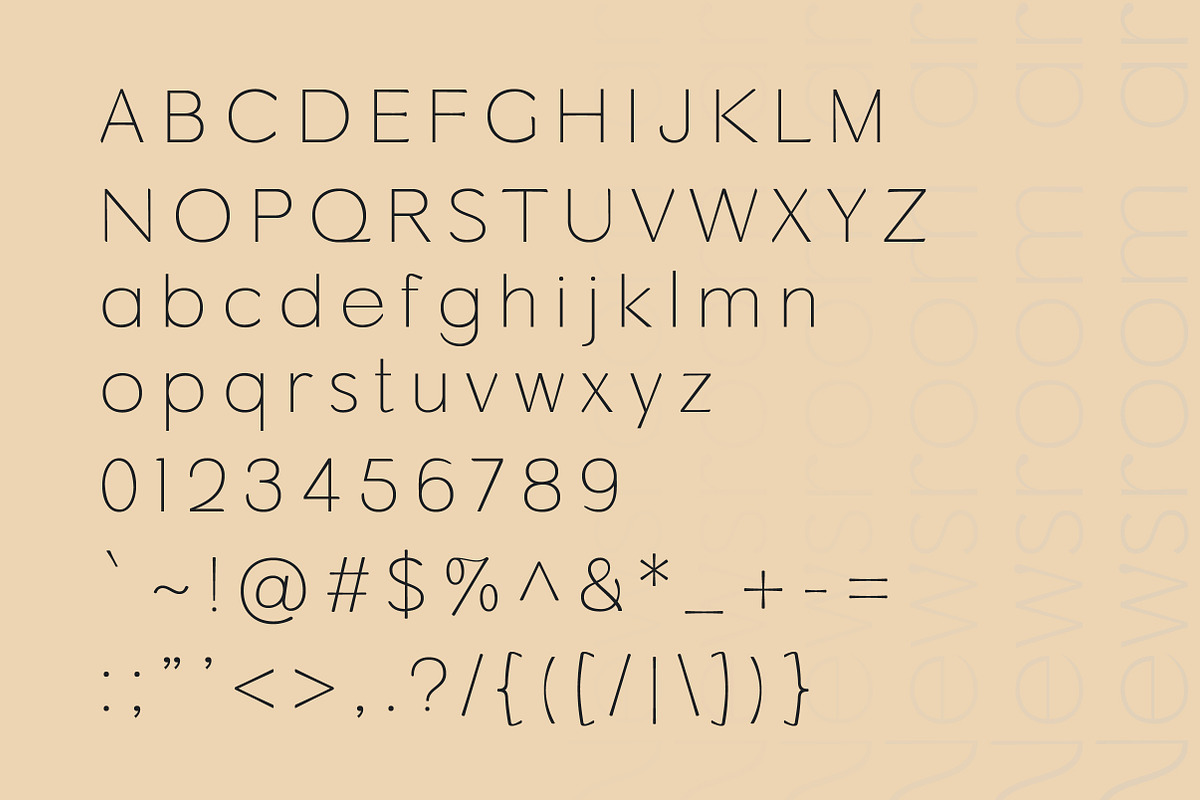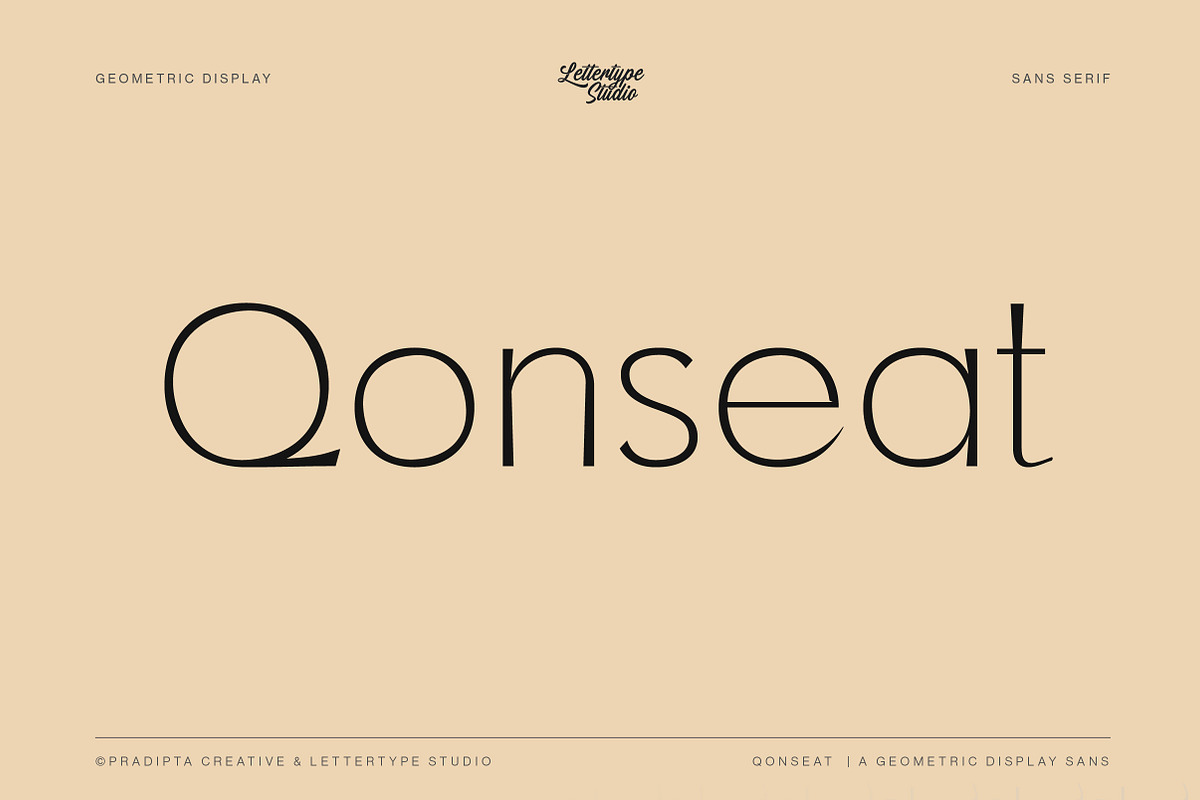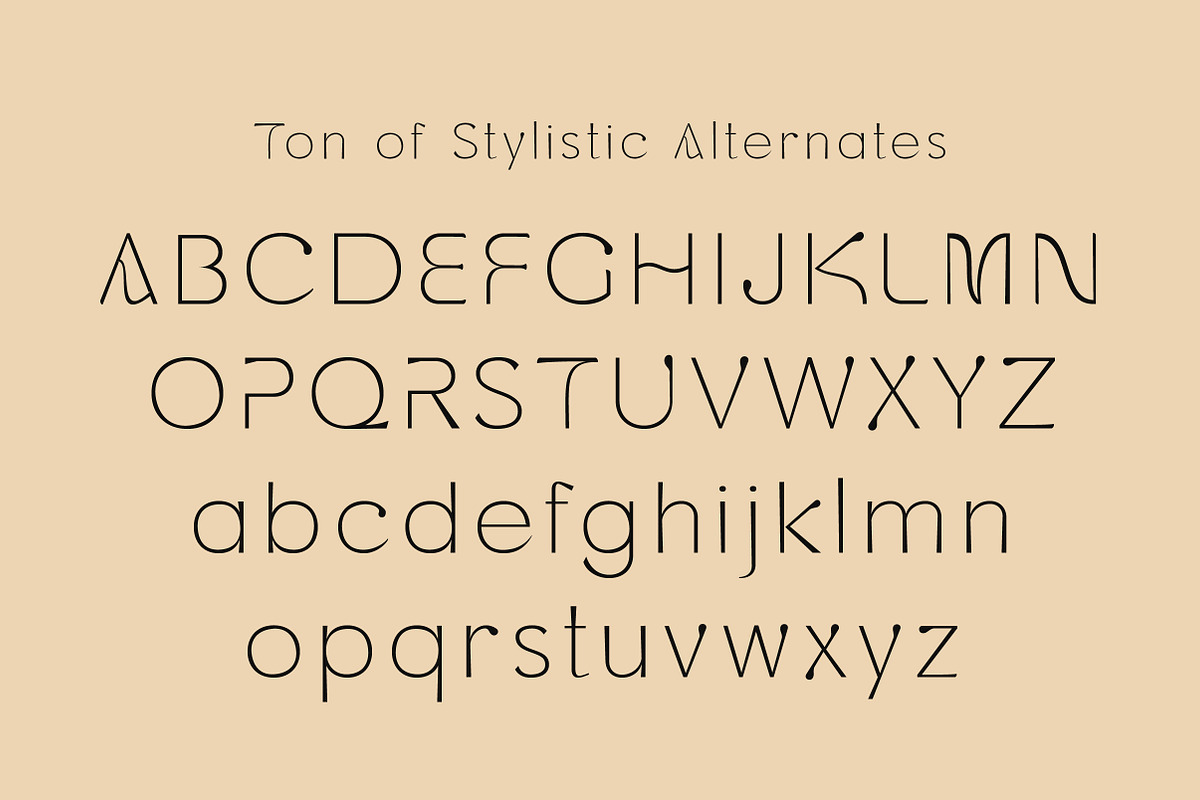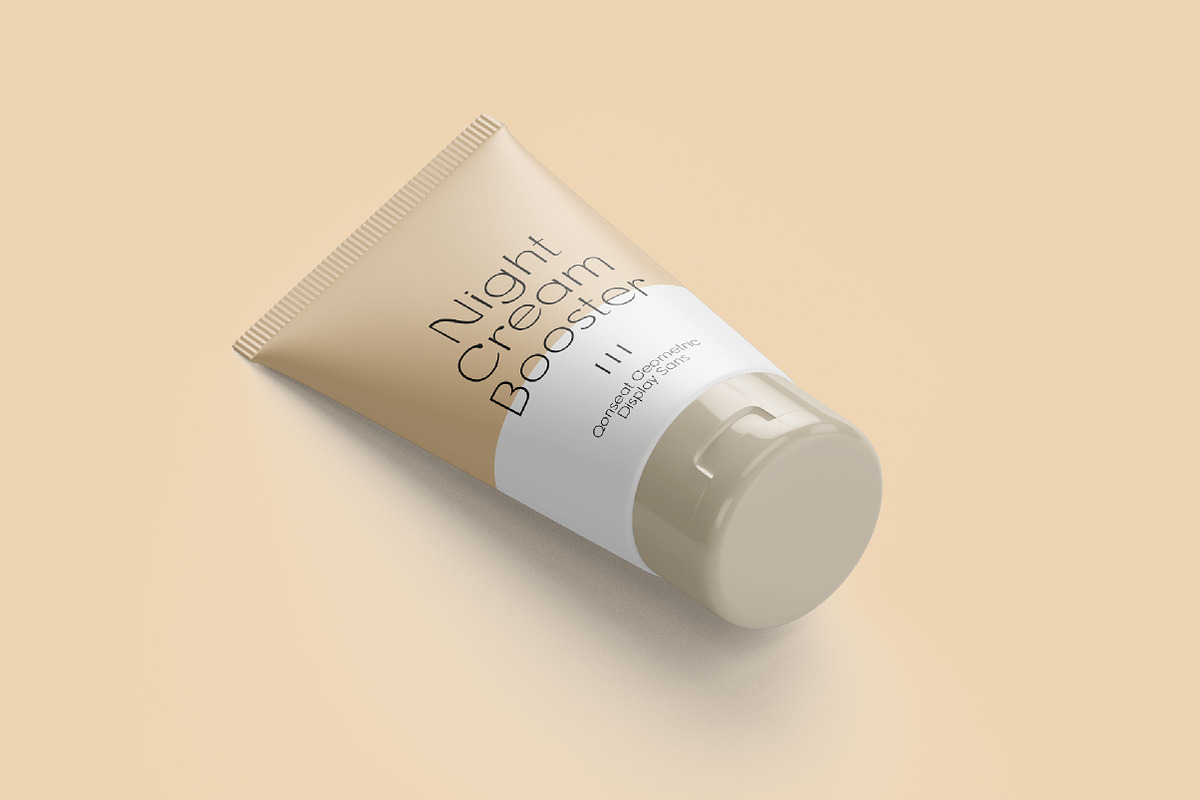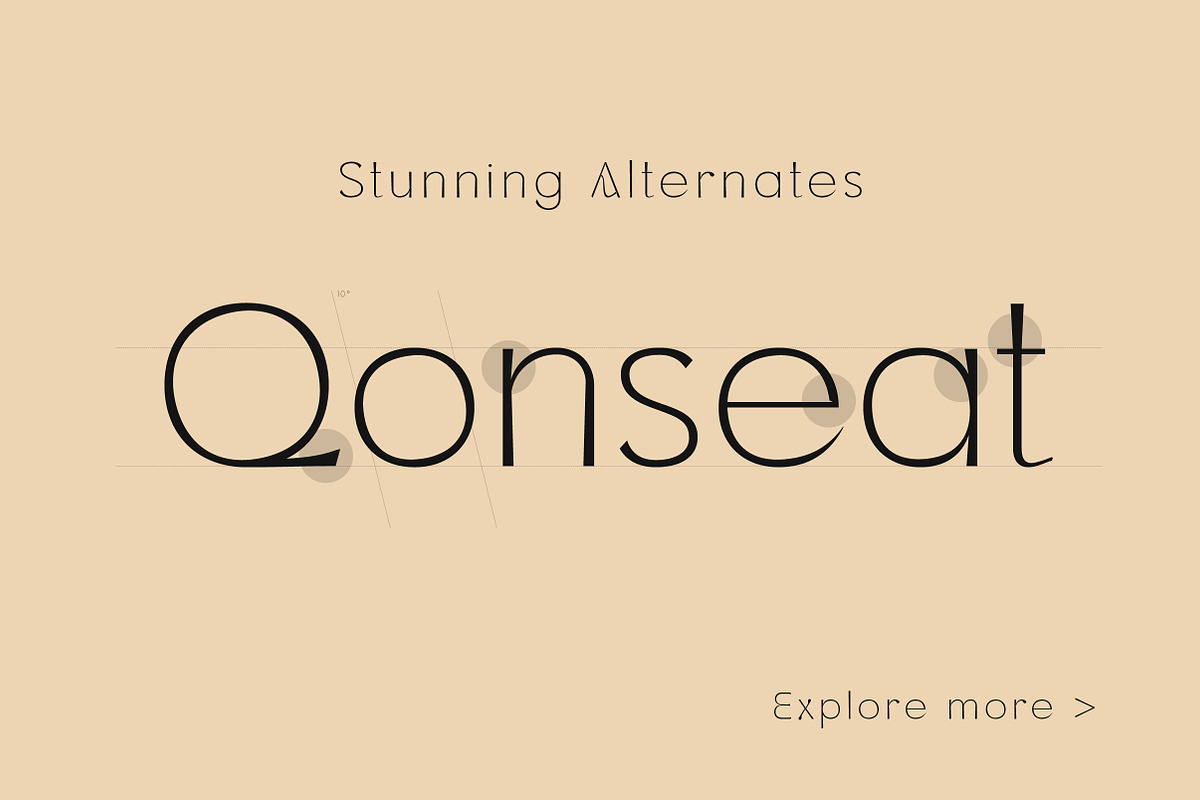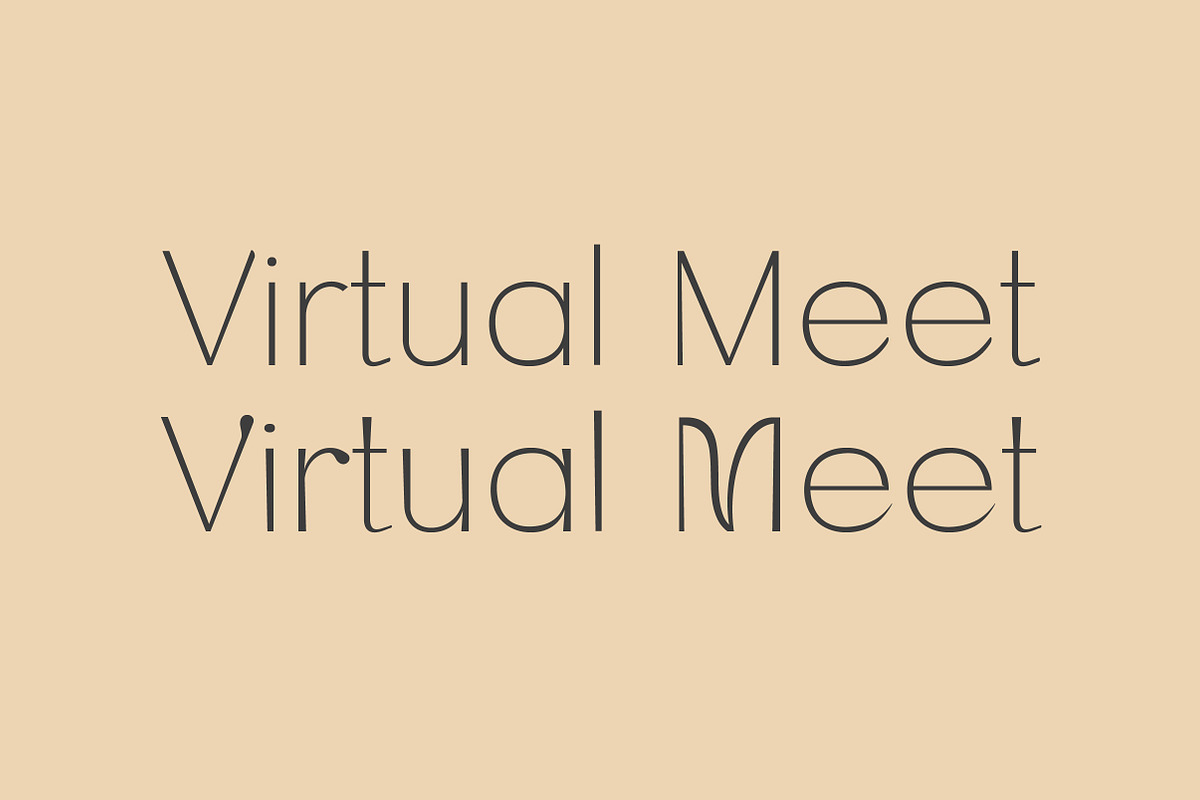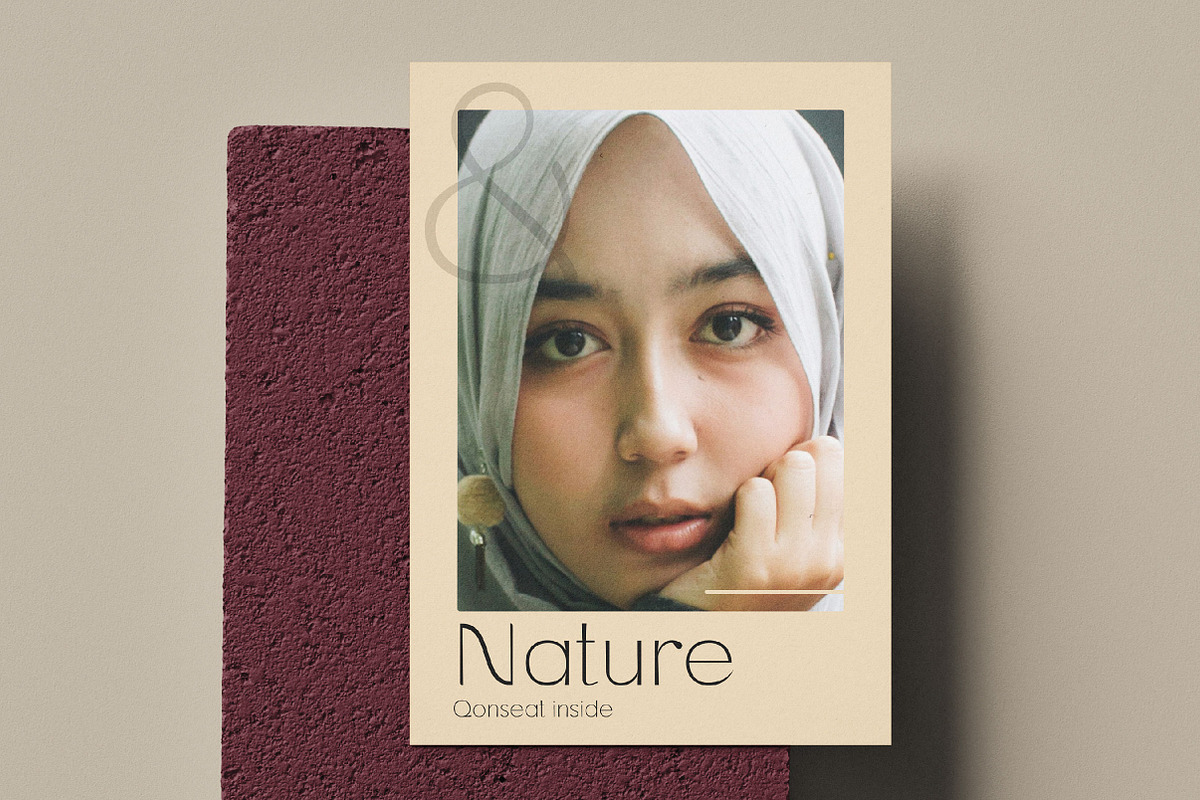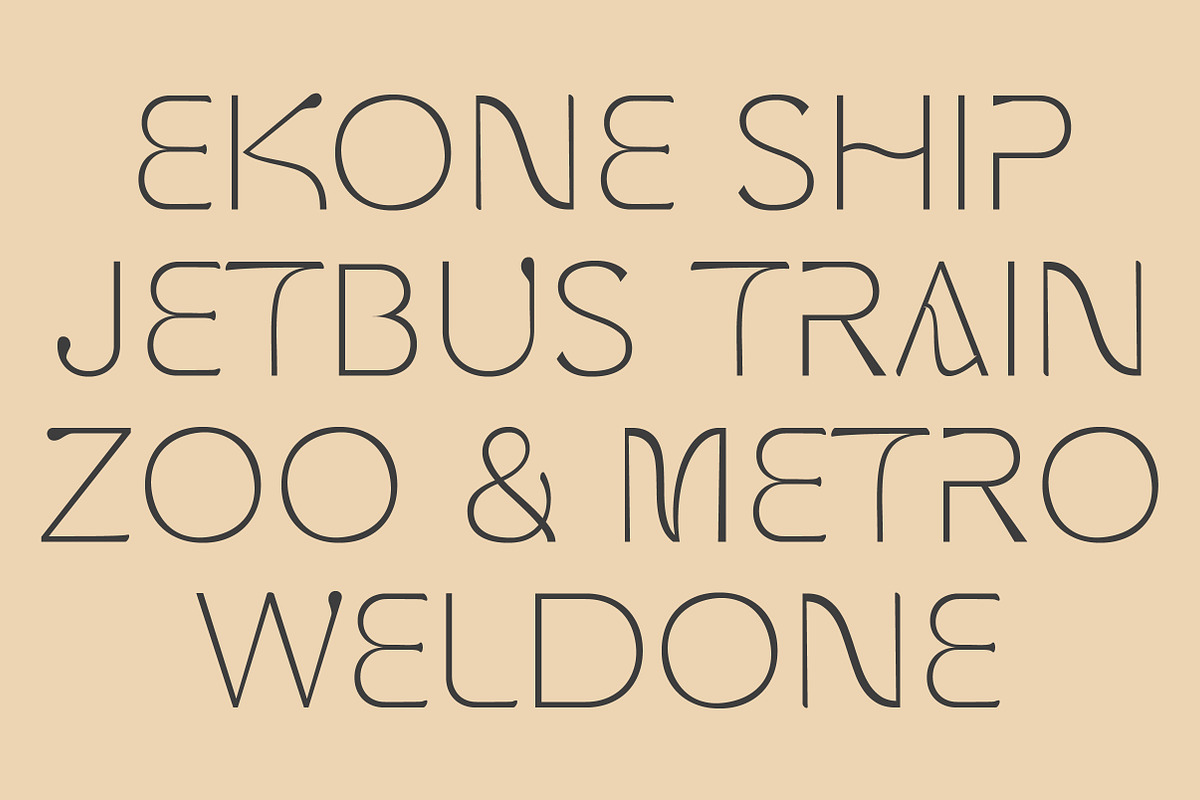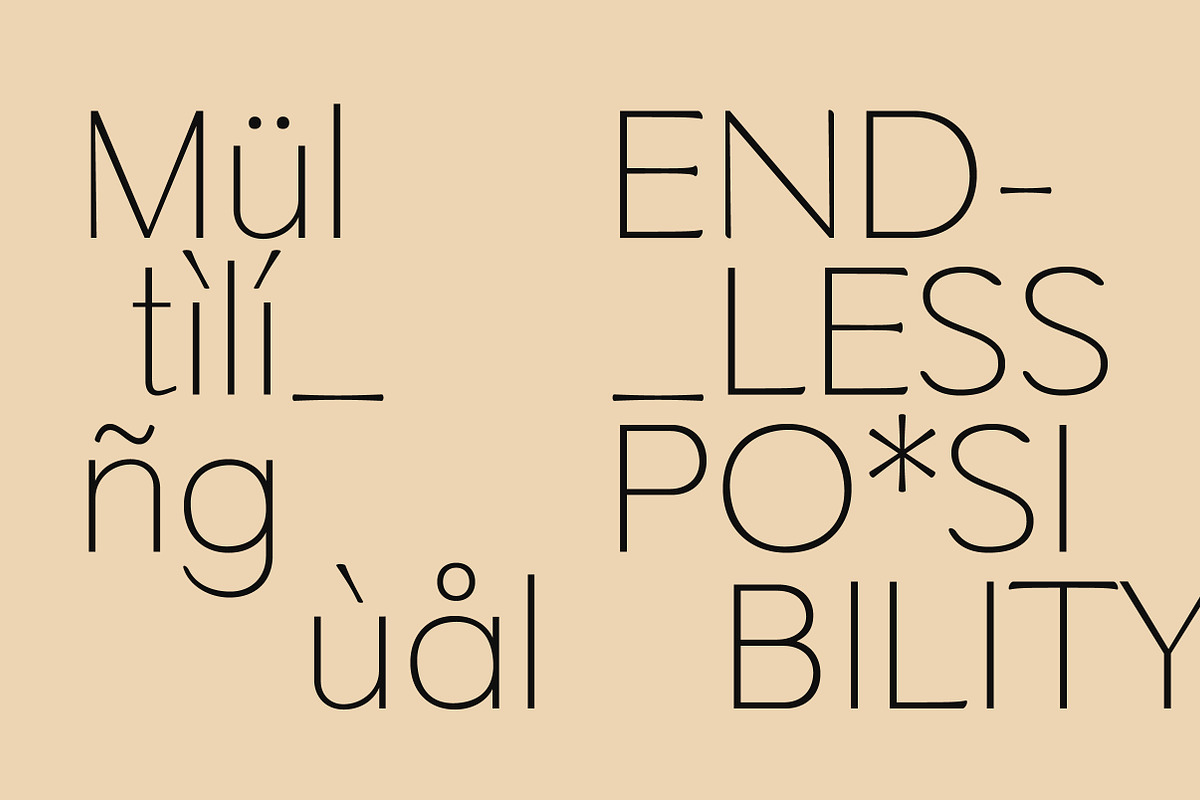
Qonseat a Geometric Display Sans
Qonseat is a Geometric Display Sans Serif with a ton of customization for your unique and standout designs.
Qonseat has over 57+ alternate glyphs for endless customization and creativity to control your projects.
This font is perfect for photography, watermarks, social media posts, advertisements, logos and branding, invitations, product designs, labels, stationery, wedding designs, product packaging, subheaders or headers, special events, or anything else.
- Lowercase & Uppercase
- Alternates & Ligature
- Creative logos, modern headlines & statement typography
- Social media graphics, branding kits & digital campaigns
- Product packaging, labels & advertising layouts
- Invitations, posters, and editorial compositions
- Trendy lifestyle or fashion-based design projects